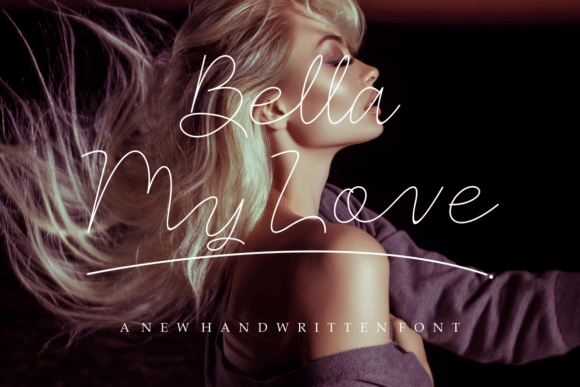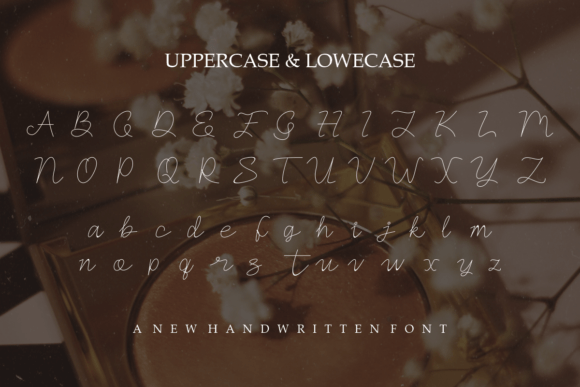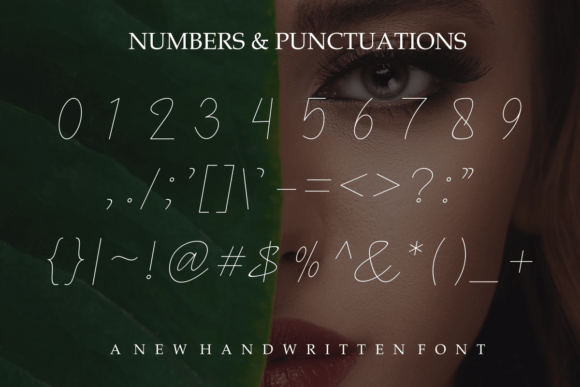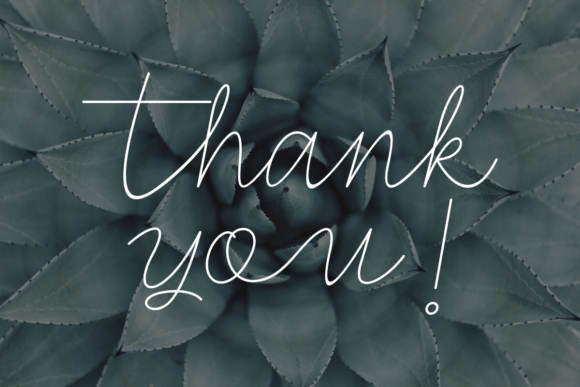
Etiyas Font: Elevate Your Designs with a Touch of Romance
Are you on the hunt for a font that exudes elegance, sophistication, and a dash of romance? Look no further than Etiyas Font, a modern and stylish script font that’s perfect for a wide range of design projects. From greeting cards to headlines, Etiyas is guaranteed to add a touch of whimsy and charm to your work.
The Versatility of Etiyas Font
Etiyas Font is a versatile script font that can be used in a variety of design applications. Its modern and stylish aesthetic makes it perfect for:
- Greeting cards: Add a personal touch to your greeting cards with Etiyas Font’s elegant and cursive script.
- Headlines: Make your headlines stand out with Etiyas Font’s bold and eye-catching design.
- Logos: Create a lasting impression with Etiyas Font’s unique and memorable style.
- Invitations: Add a touch of sophistication to your invitations with Etiyas Font’s elegant script.
- Branding: Use Etiyas Font to create a cohesive brand identity that exudes elegance and refinement.
The Characteristics of Etiyas Font
Etiyas Font boasts a range of characteristics that make it a standout choice for designers and crafters. Some of its key features include:
- Modern and stylish design: Etiyas Font’s sleek and contemporary aesthetic makes it perfect for designs that require a touch of sophistication.
- Elegant script: Etiyas Font’s cursive script is both elegant and refined, making it perfect for designs that require a touch of whimsy and charm.
- Versatile: Etiyas Font can be used in a wide range of design applications, from greeting cards to headlines.
- Easy to read: Despite its elegant script, Etiyas Font is easy to read and understand, making it perfect for designs that require a clear and concise message.
Why Choose Etiyas Font?
So why choose Etiyas Font for your next design project? Here are just a few reasons:
- Add a touch of romance: Etiyas Font’s elegant script and modern design make it perfect for designs that require a touch of romance and whimsy.
- Stand out from the crowd: Etiyas Font’s unique and stylish design makes it perfect for designers who want to create designs that stand out from the crowd.
- Easy to use: Etiyas Font is easy to use and can be incorporated into a wide range of design applications.
- High-quality: Etiyas Font is a high-quality font that’s designed to deliver exceptional results.
Tips for Using Etiyas Font
Here are a few tips for using Etiyas Font in your design projects:
- Use it sparingly: Etiyas Font’s elegant script and modern design make it perfect for designs that require a touch of sophistication. Use it sparingly to add emphasis and create a lasting impression.
- Pair it with other fonts: Etiyas Font can be paired with other fonts to create a unique and stylish design. Experiment with different font combinations to find the perfect look for your project.
- Experiment with different sizes: Etiyas Font can be used in a range of sizes, from small and delicate to large and bold. Experiment with different sizes to find the perfect look for your project.
Etiyas Font is a modern and stylish script font that’s perfect for designers and crafters who want to add a touch of romance and whimsy to their designs. Its versatile design makes it perfect for a wide range of applications, from greeting cards to headlines. With its elegant script, modern aesthetic, and high-quality design, Etiyas Font is the perfect choice for designers who want to create exceptional designs that stand out from the crowd.